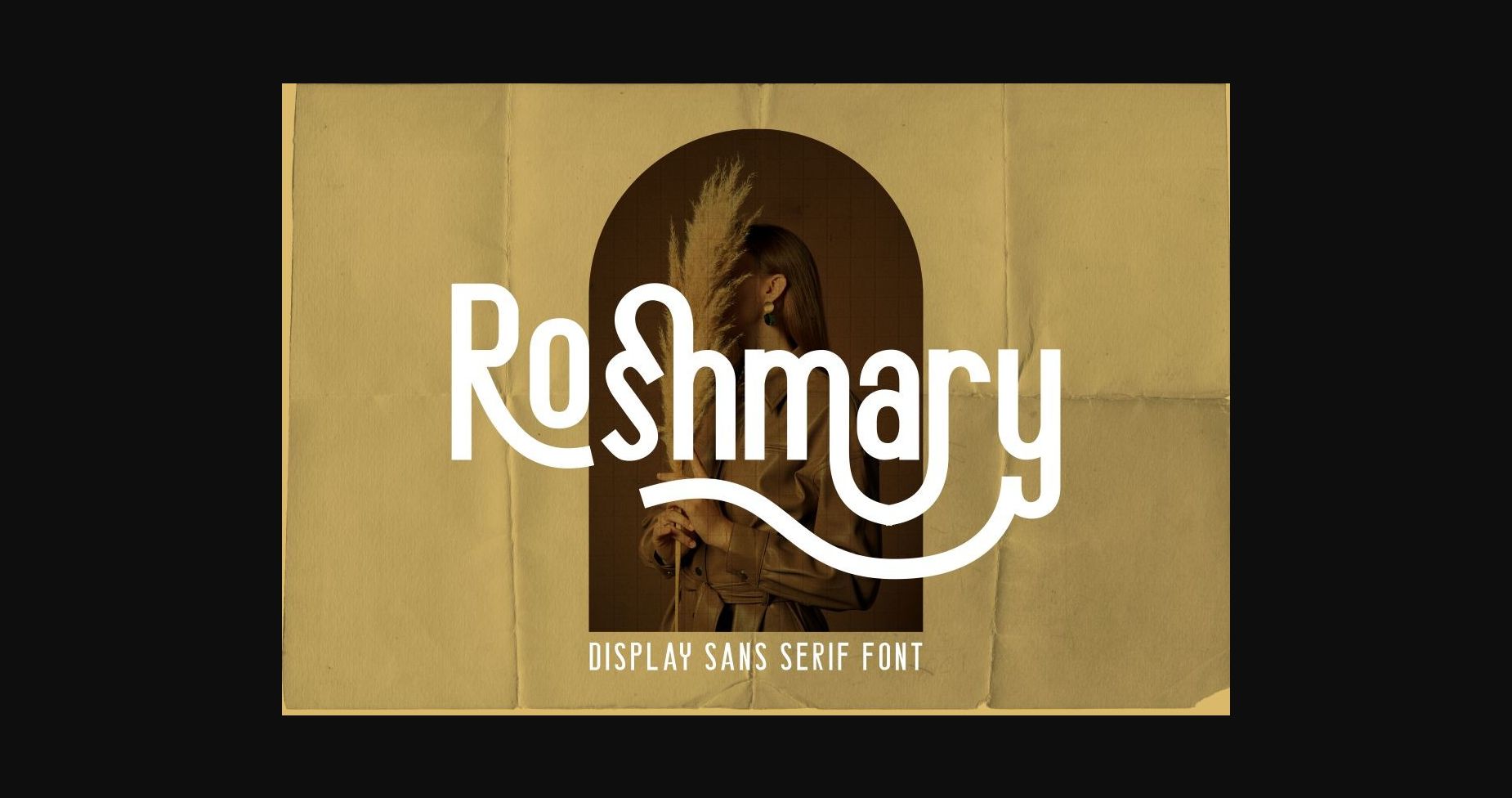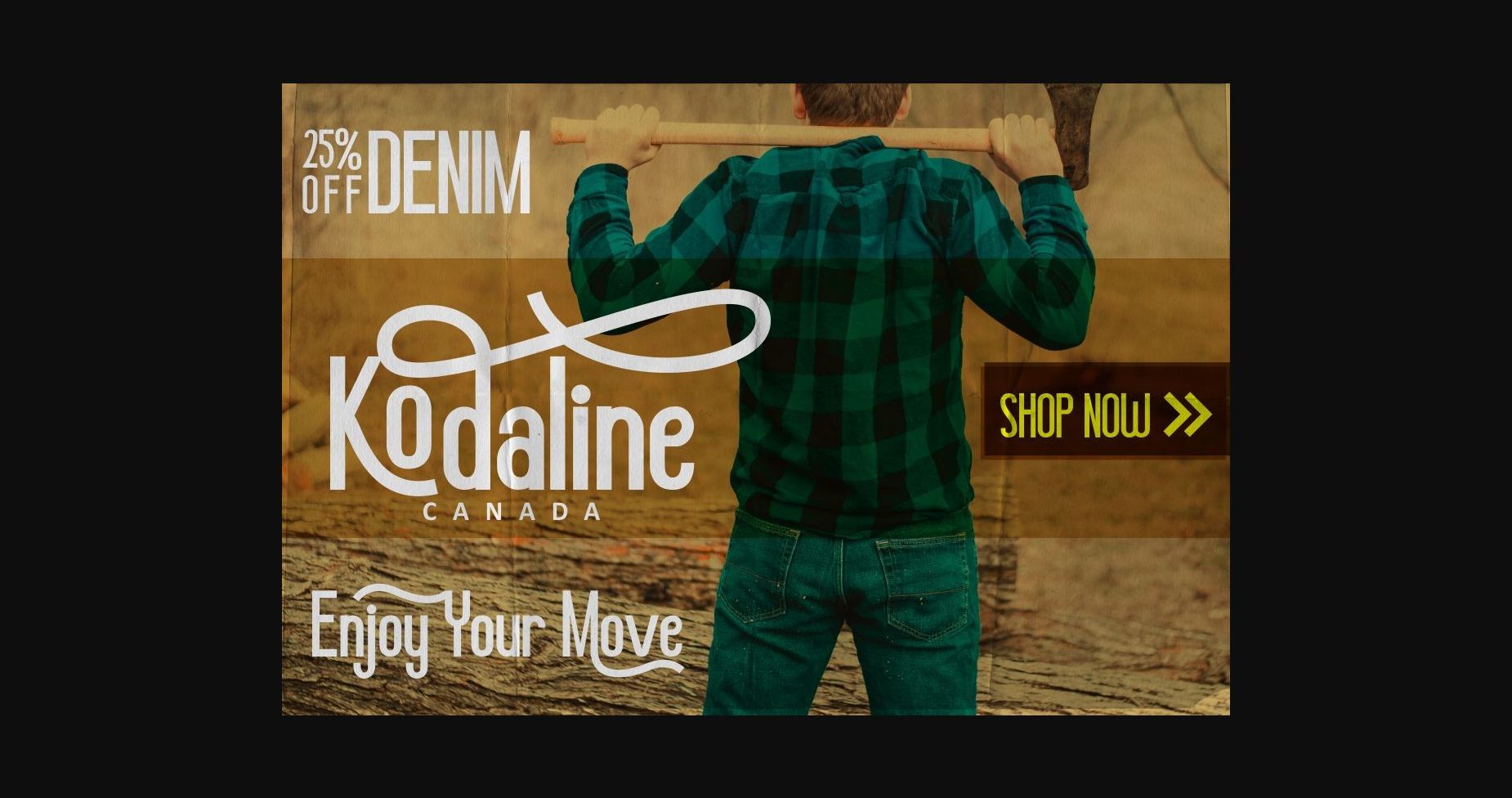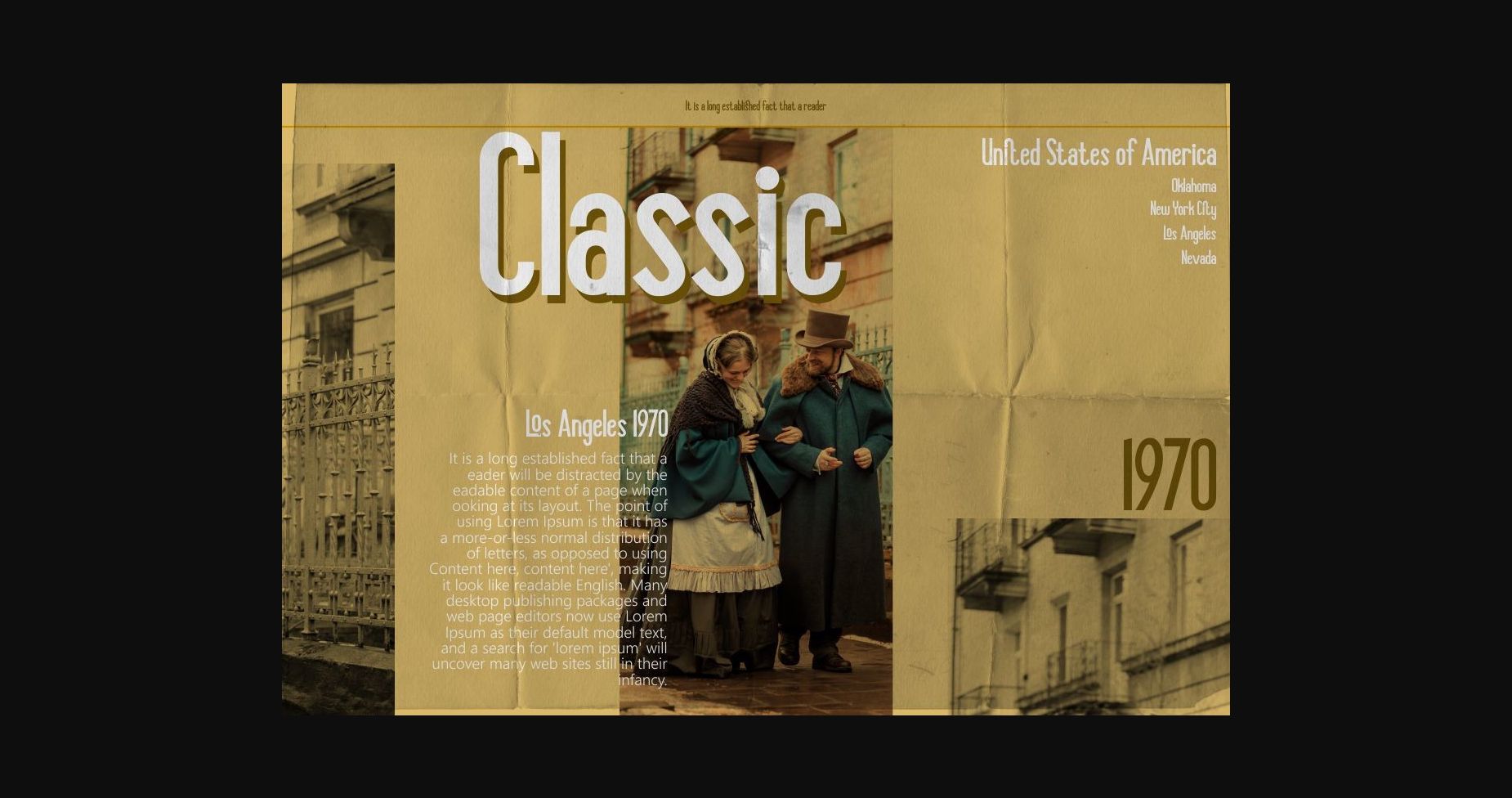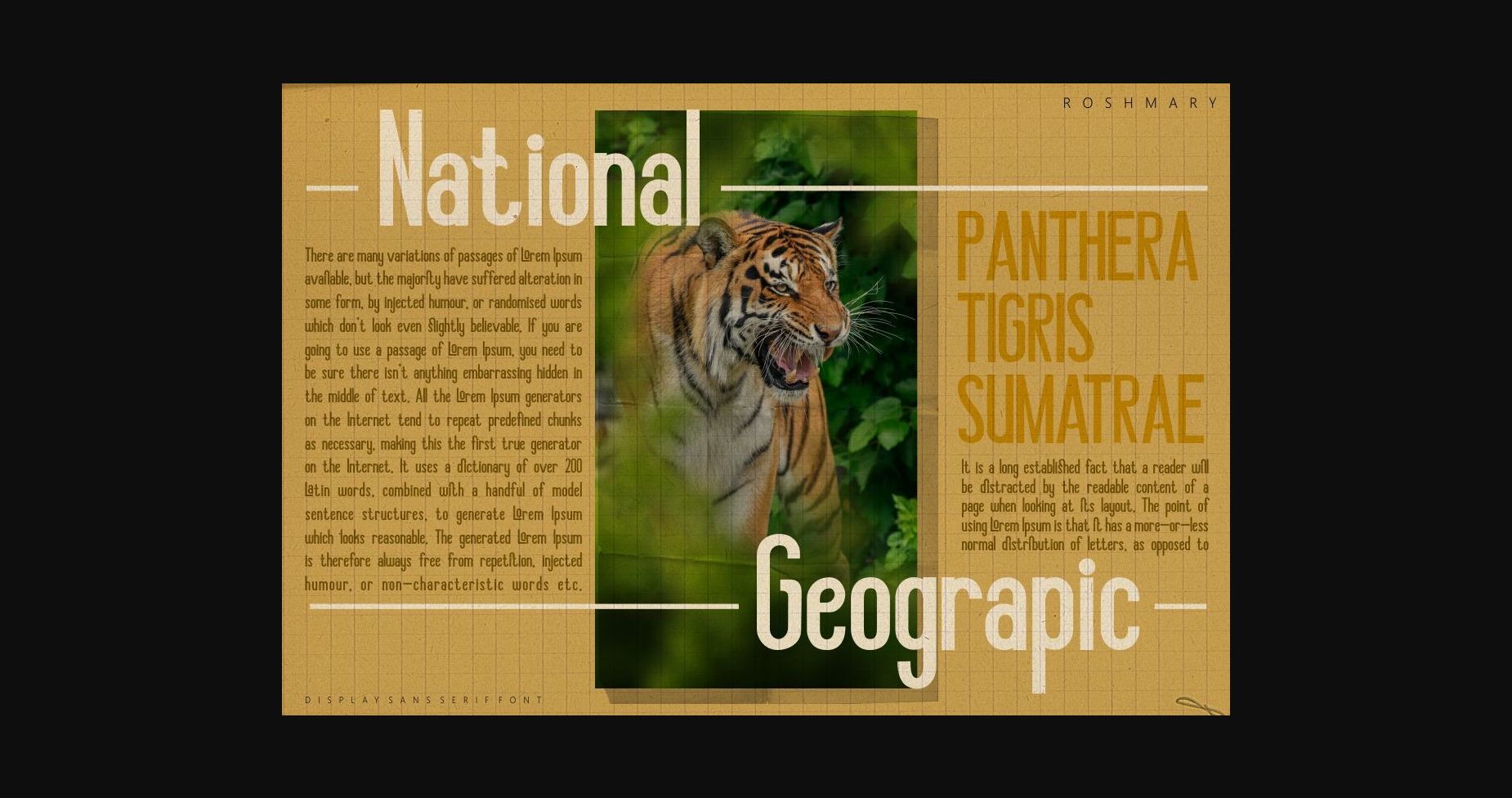
About Roshmary Font
Roshmary is an elegant sans serif font. It can easily be matched to an incredibly large set of projects, so add it to your creative ideas and notice how it makes them stand out! This font is PUA encoded which means you can access all of the glyphs and swashes with ease!